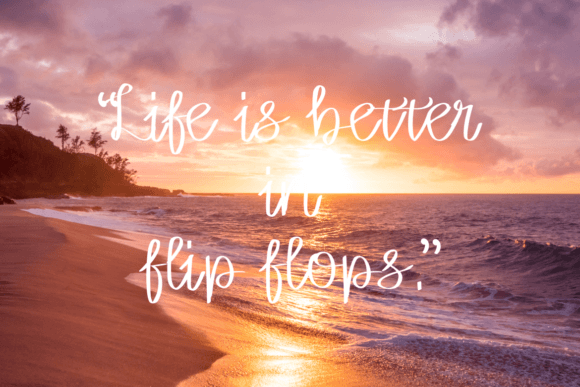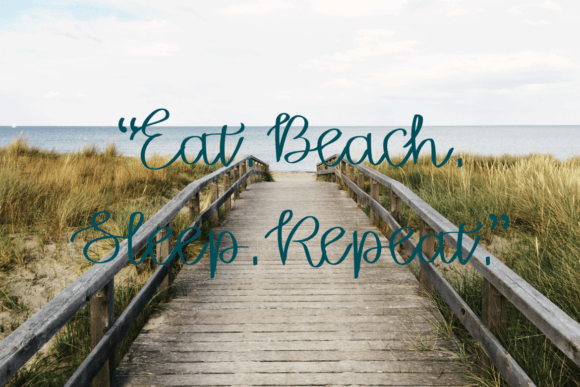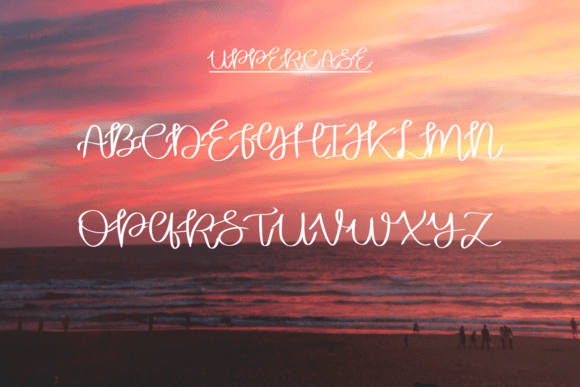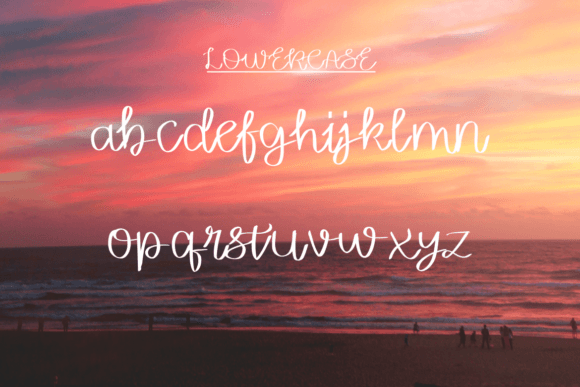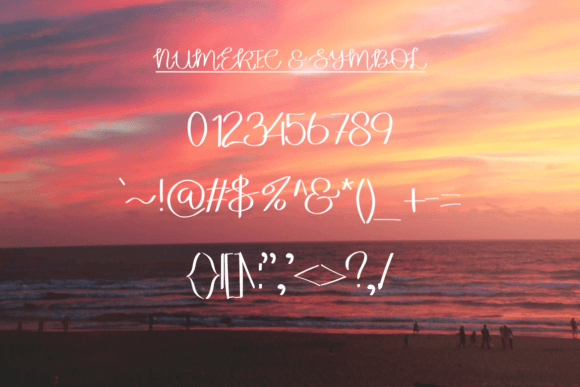
Ghasya Font: The Fun and Quirky Handwritten Font for Creative Projects
Are you a designer, crafter, or DIY enthusiast looking for a unique and playful font to add a personal touch to your projects? Look no further than Ghasya Font! This fun and quirky handwritten font is perfect for a variety of creative endeavors, from crafting and digital designing to presentations and greeting card making.
What is Ghasya Font?
Ghasya Font is a carefully crafted handwritten font that exudes a sense of playfulness and whimsy. Its irregularities and imperfections give it a charming, human touch that’s sure to make your projects stand out. Whether you’re creating digital content, printing out physical materials, or crafting handmade items, Ghasya Font is the perfect choice.
Features of Ghasya Font
- Handwritten style: Ghasya Font has a distinctly handwritten feel that’s perfect for adding a personal touch to your projects.
- Fun and quirky: This font is designed to be playful and fun, making it ideal for creative projects that require a lighthearted touch.
- Versatile: Ghasya Font can be used for a wide range of projects, from digital designing and crafting to presentations and greeting card making.
- Easy to read: Despite its playful nature, Ghasya Font is still easy to read, making it perfect for use in body text or headings.
Use Cases for Ghasya Font
So, what can you use Ghasya Font for? The possibilities are endless! Here are a few ideas to get you started:
- Crafting: Use Ghasya Font to add a personal touch to your scrapbooking, journaling, or other paper crafting projects.
- Digital designing: Add a playful touch to your social media graphics, blog posts, or website designs with Ghasya Font.
- Presentations: Use Ghasya Font to add some personality to your presentations, making them more engaging and fun to read.
- Greeting card making: Create one-of-a-kind greeting cards for special occasions with Ghasya Font.
Tips for Using Ghasya Font
To get the most out of Ghasya Font, here are a few tips to keep in mind:
- Pair with contrasting fonts: Combine Ghasya Font with a more traditional font to create visual interest and add contrast to your designs.
- Experiment with colors: Ghasya Font looks great in a variety of colors, so don’t be afraid to experiment and find the perfect hue for your project.
- Use it sparingly: While Ghasya Font is fun and playful, it can be overwhelming if used too much. Use it sparingly to add emphasis and create visual interest.
Ghasya Font is a fun and quirky handwritten font that’s perfect for designers, crafters, and DIY enthusiasts looking to add a personal touch to their projects. With its playful style, versatility, and ease of use, Ghasya Font is sure to become a go-to font in your creative toolkit. So why wait? Download Ghasya Font today and start adding a touch of whimsy to your creative projects!